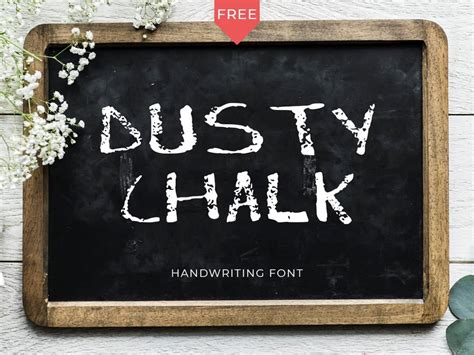
35 Best Examples of Chalk Hand Lettering Fonts 2017
Chalk Written Font. Chalk is popular with kids,. Chalk fonts have letters that look like they were drawn or written with a stick of chalk.
35 Best Examples of Chalk Hand Lettering Fonts 2017
Web discover the charm of our free chalk, handwritten fonts. Designed to give your content a distinctive. Perfect for creating unique, rustic designs. Chalk is popular with kids,. Chalk fonts have letters that look like they were drawn or written with a stick of chalk.
Chalk is popular with kids,. Perfect for creating unique, rustic designs. Chalk fonts have letters that look like they were drawn or written with a stick of chalk. Designed to give your content a distinctive. Web discover the charm of our free chalk, handwritten fonts. Chalk is popular with kids,.